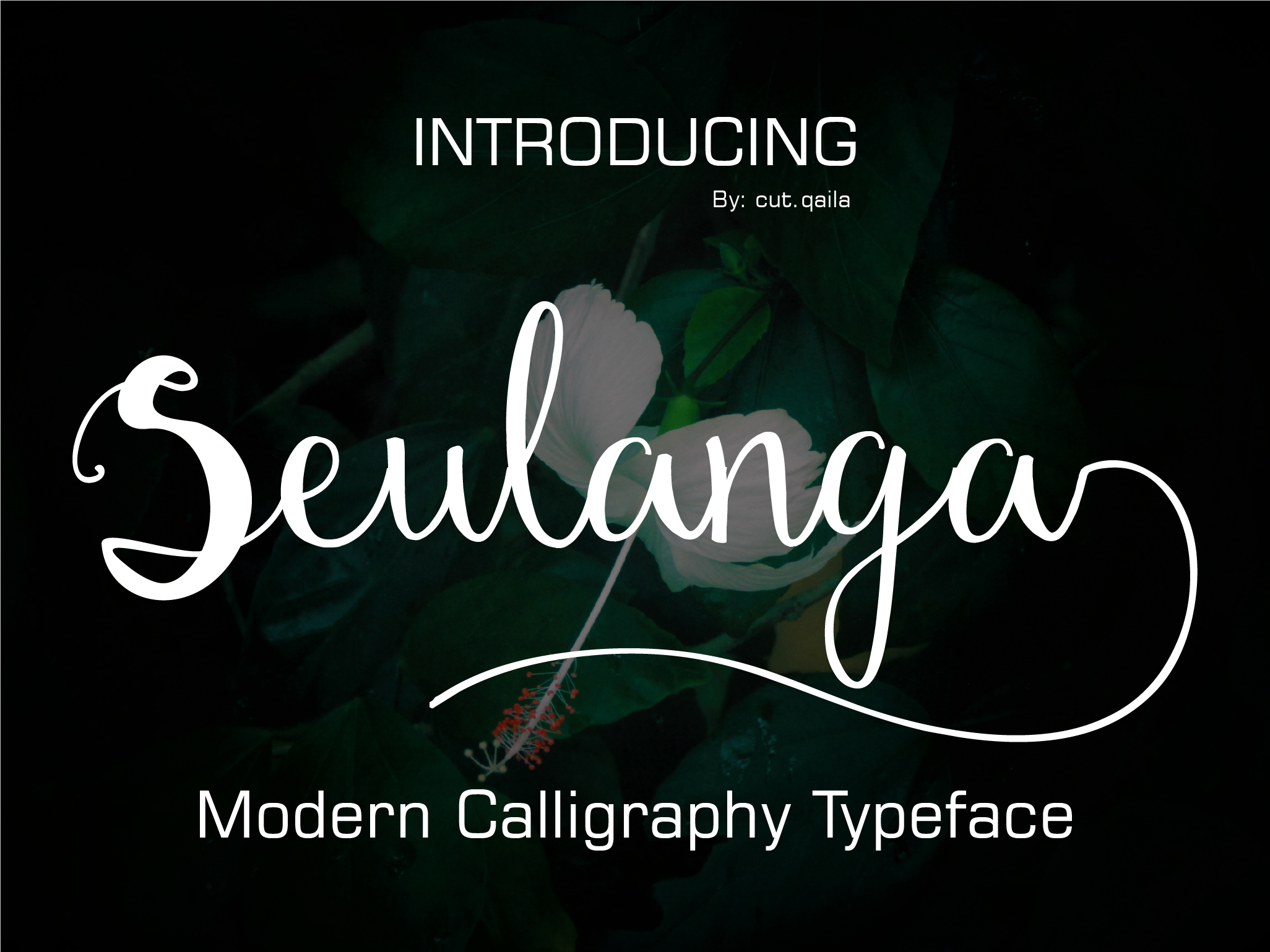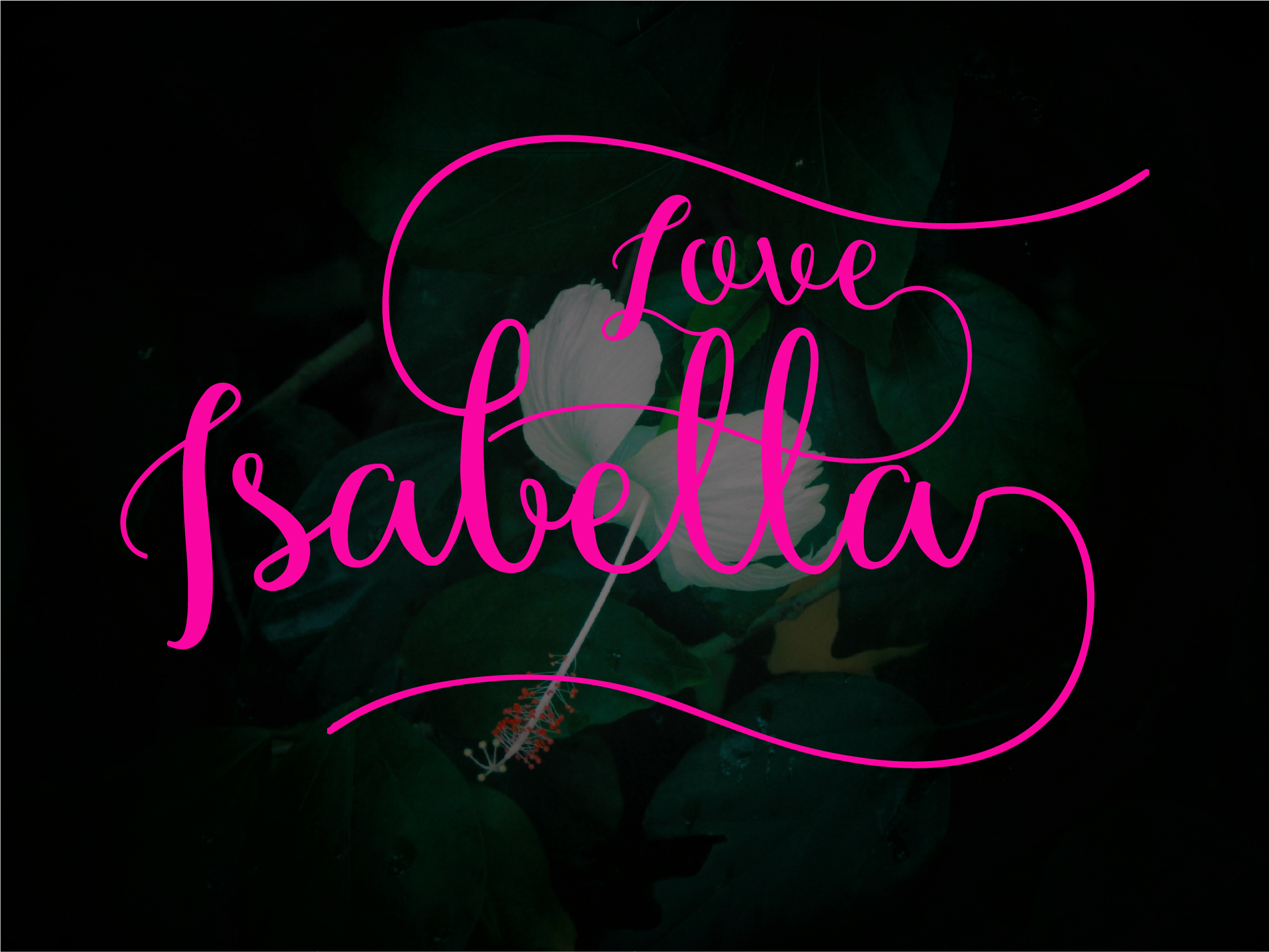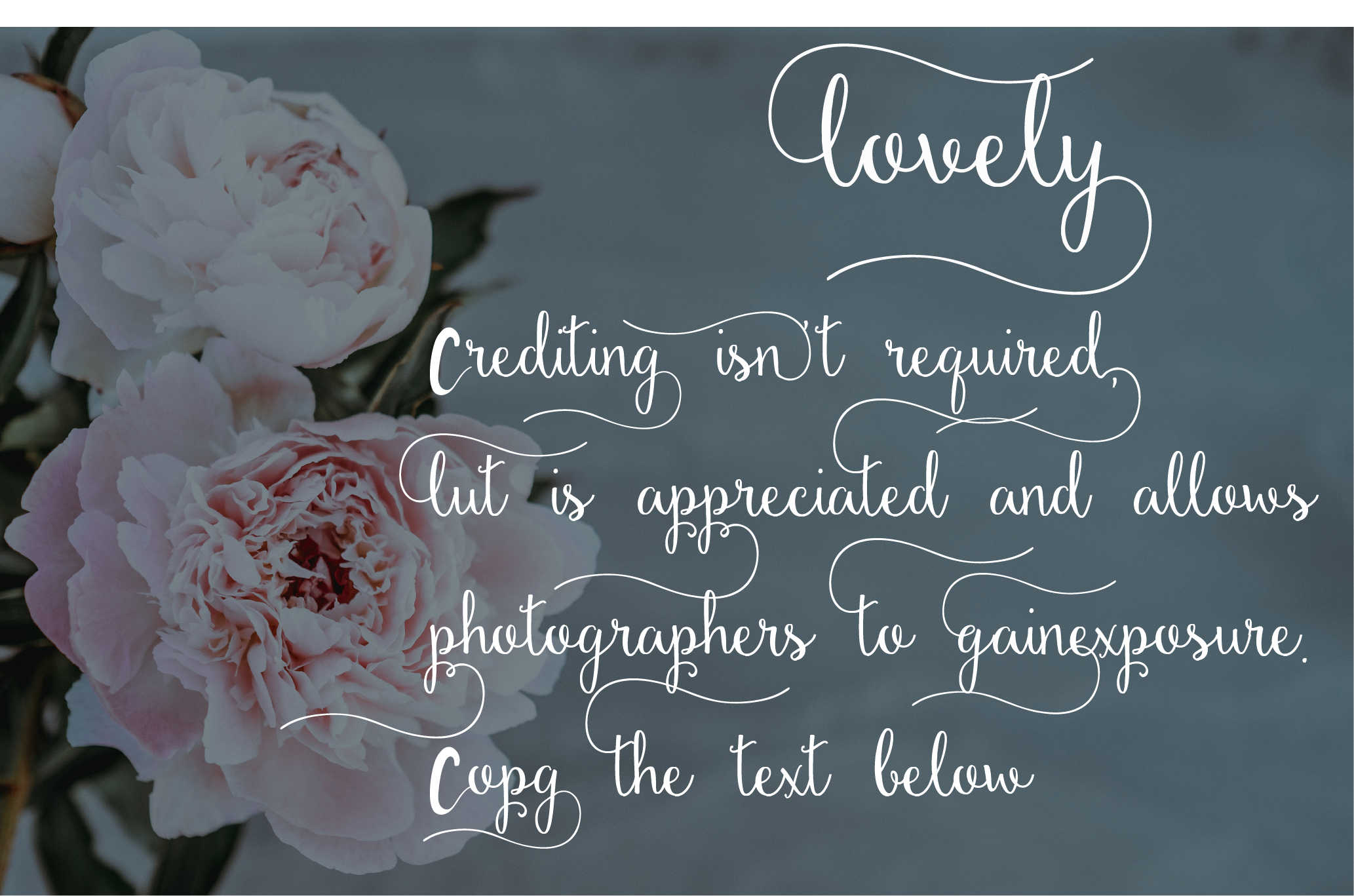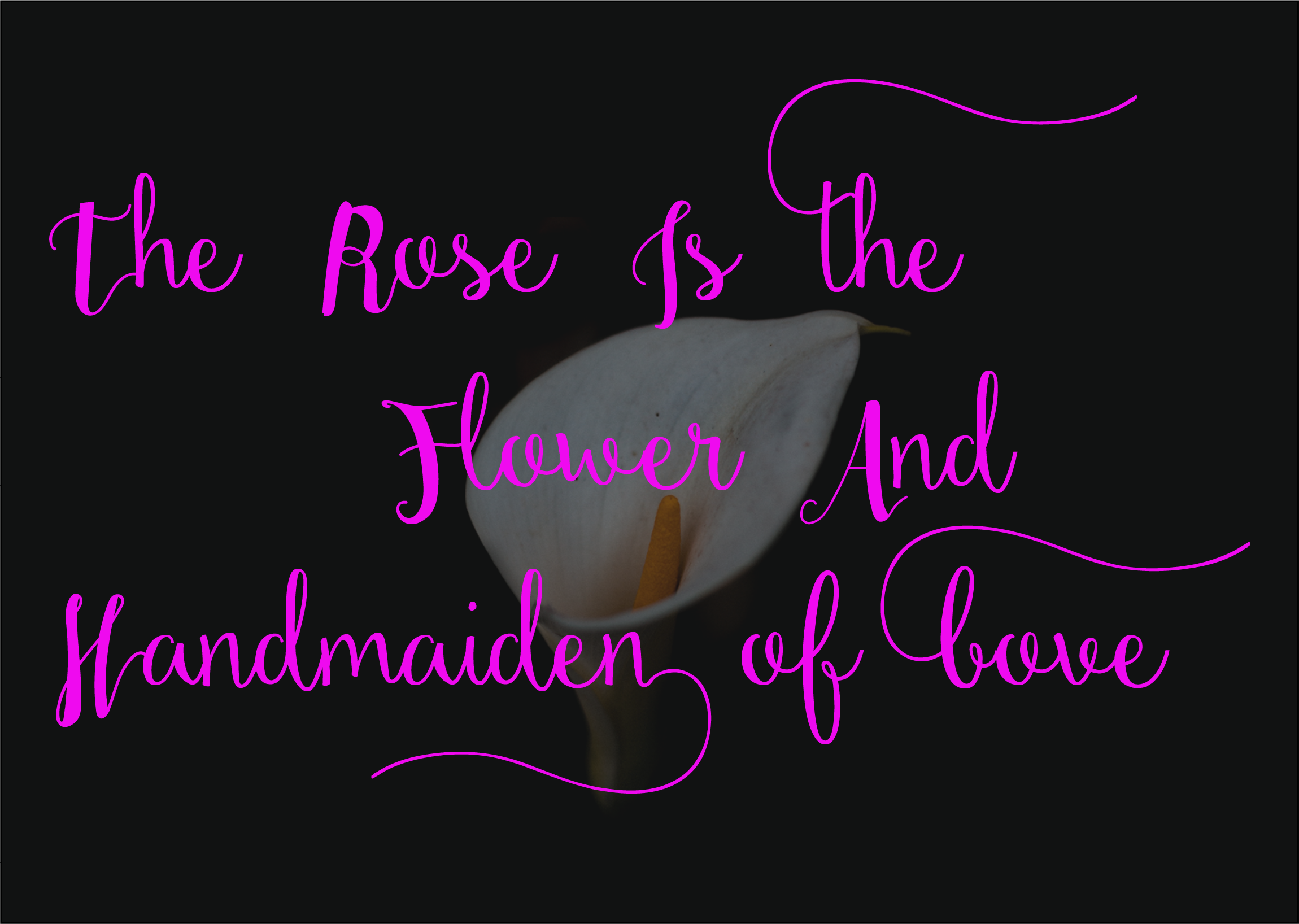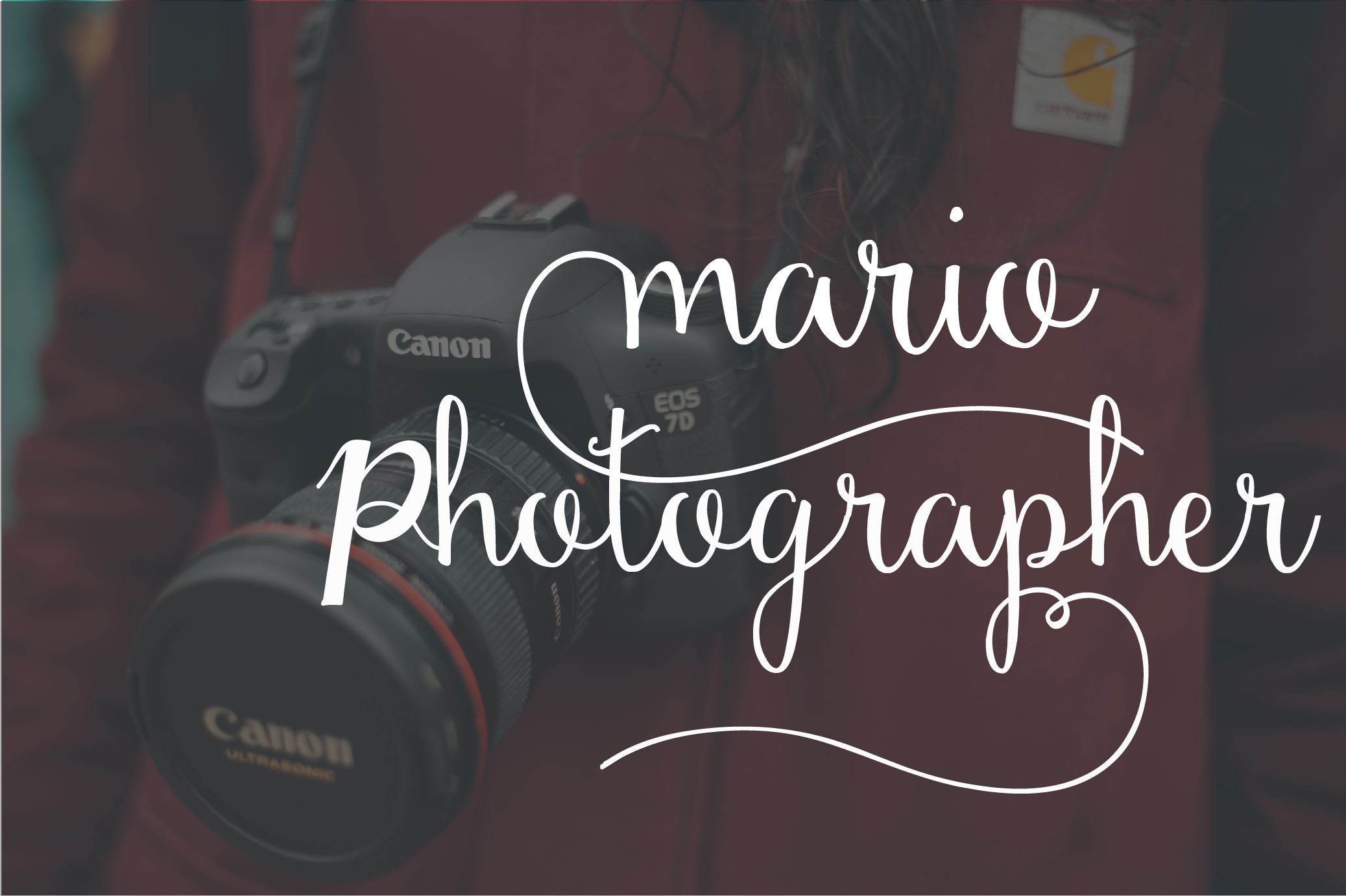
Seulanga Font
About Seulanga Font
Seulanga is an elegant handwritten calligraphic-style font.
It can easily be used for various creative project such as logos, invites, apparel and much more.